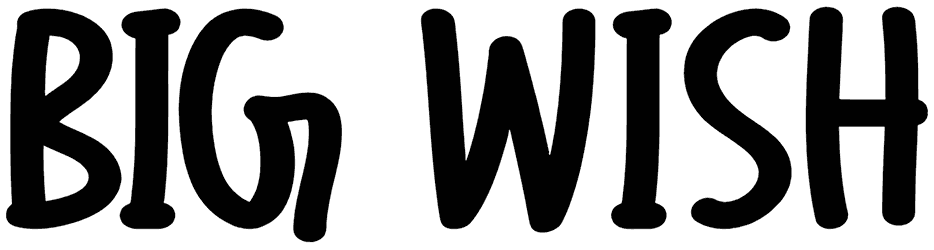
Big Wish Font
If you need to bold your words while conveying a sweet and casual vibe, you are at the right point. This handwritten font, which is called Big Wish, has soft and natural lettering and an eye-catching mood. There is no offer for lowercase letters and numerals, but this script font can be a pleasant pickup for novel projects like logos, packaging, and so forth.